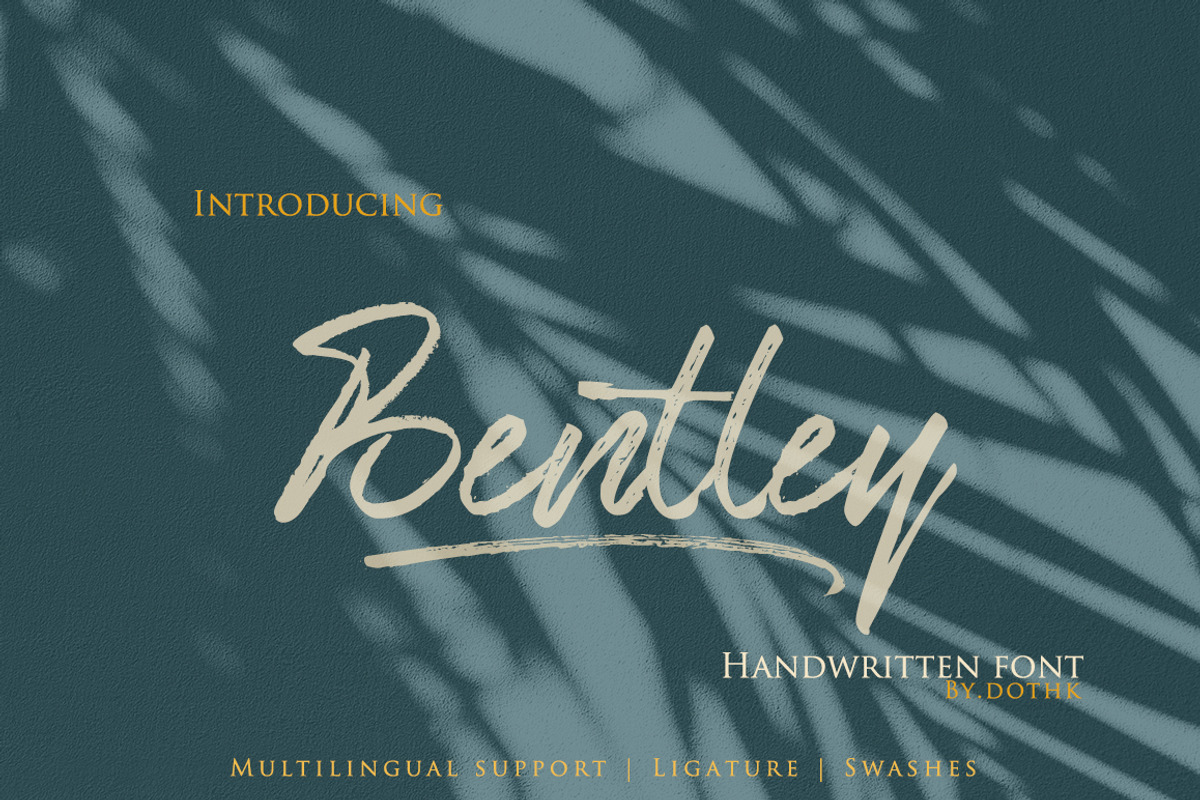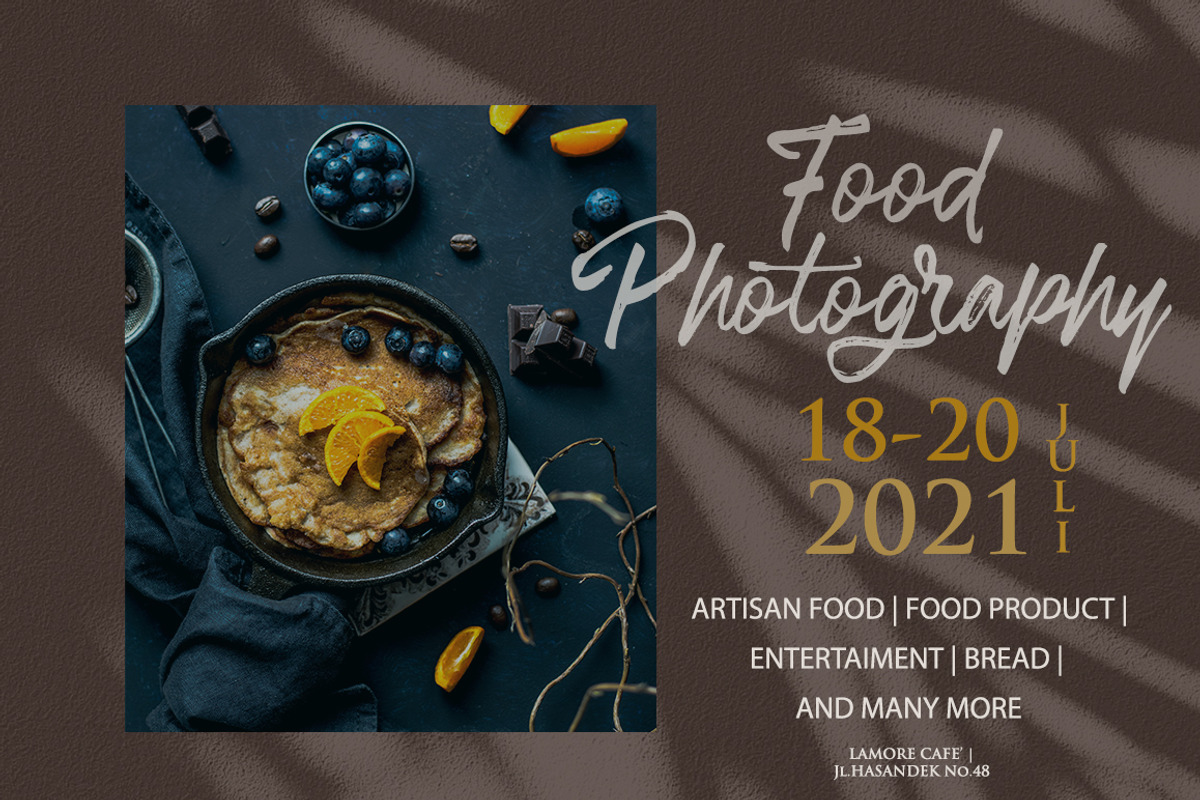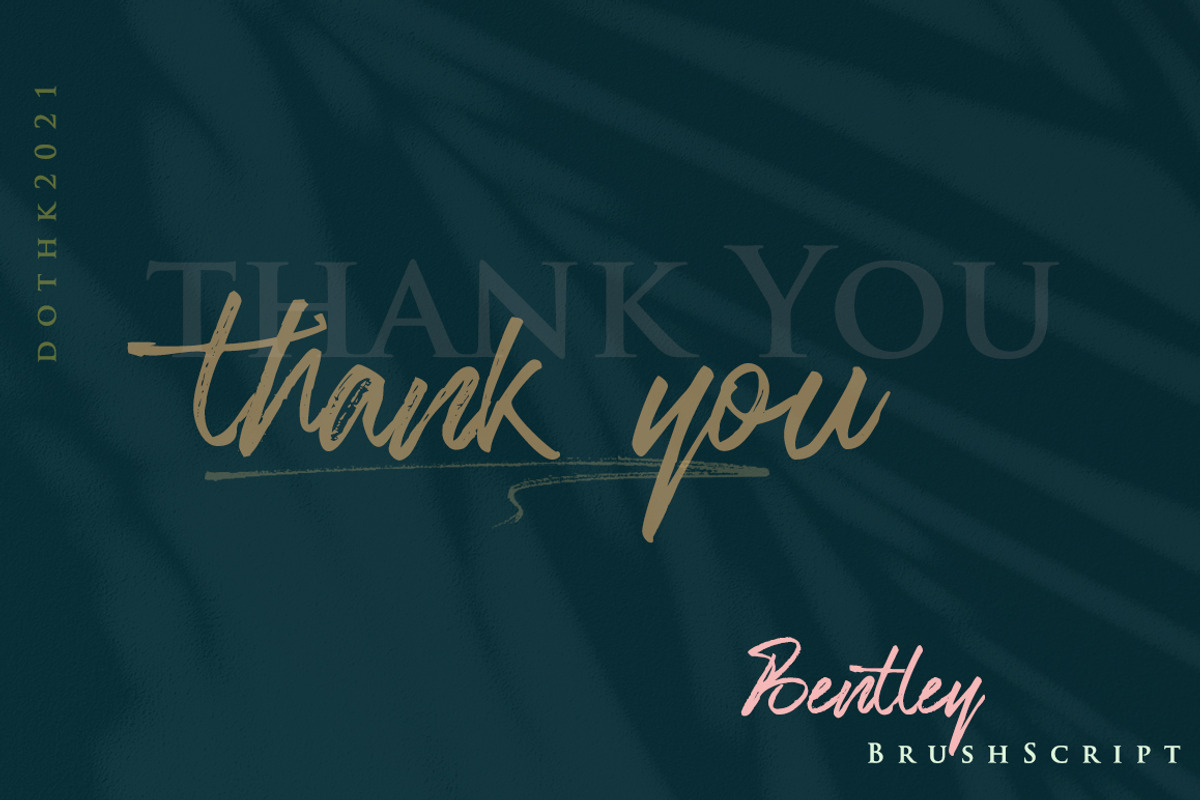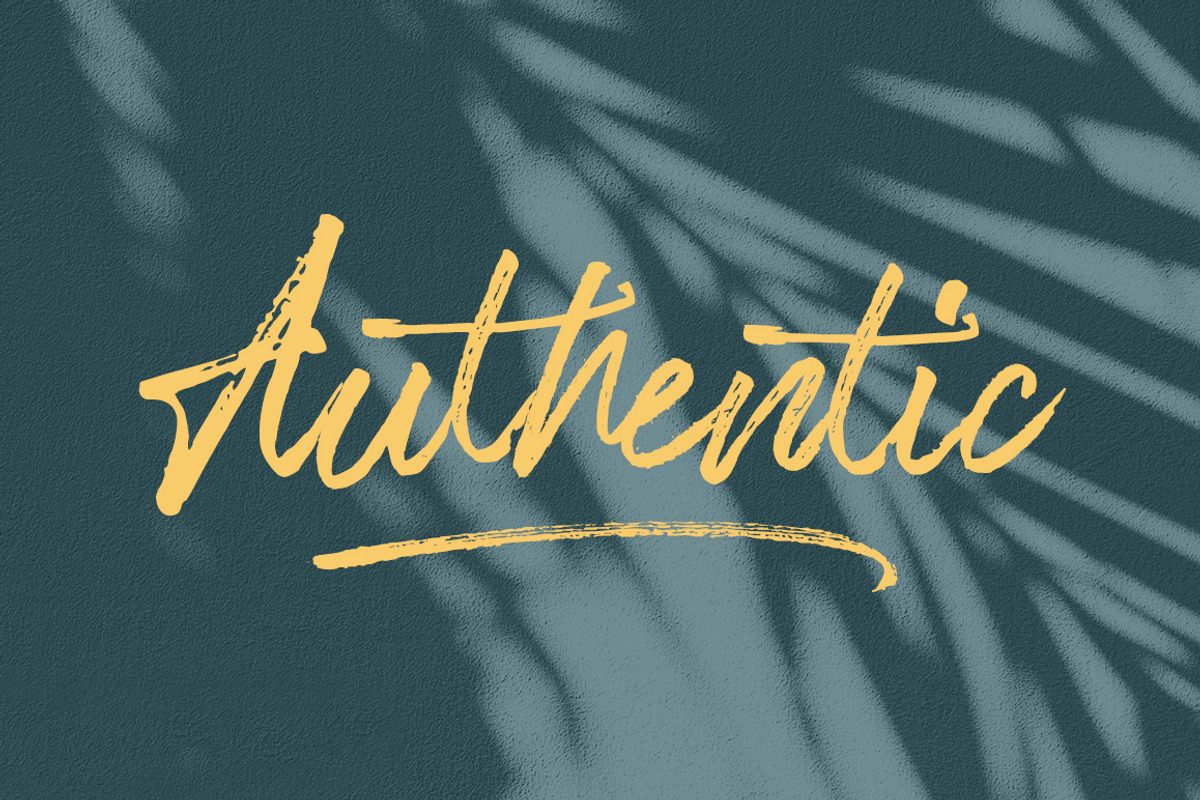
Bentley Script
Bentley Script Font is a casual dry brush font with a bunch of letter variations to make that perfect and unique design. Ideal for the header, logos, handwritten quotes, product packaging, poster, merchandise, social media & greeting cards.
Bentley Script This font has been equipped with OpenType features and has many glyphs. and of course by having many of these glyphs will be able to choose the letters according to your liking, lots of variations and options for each letter, so you can customize your design choices and also have other languages supported.